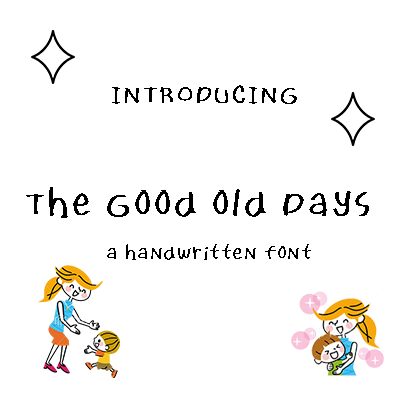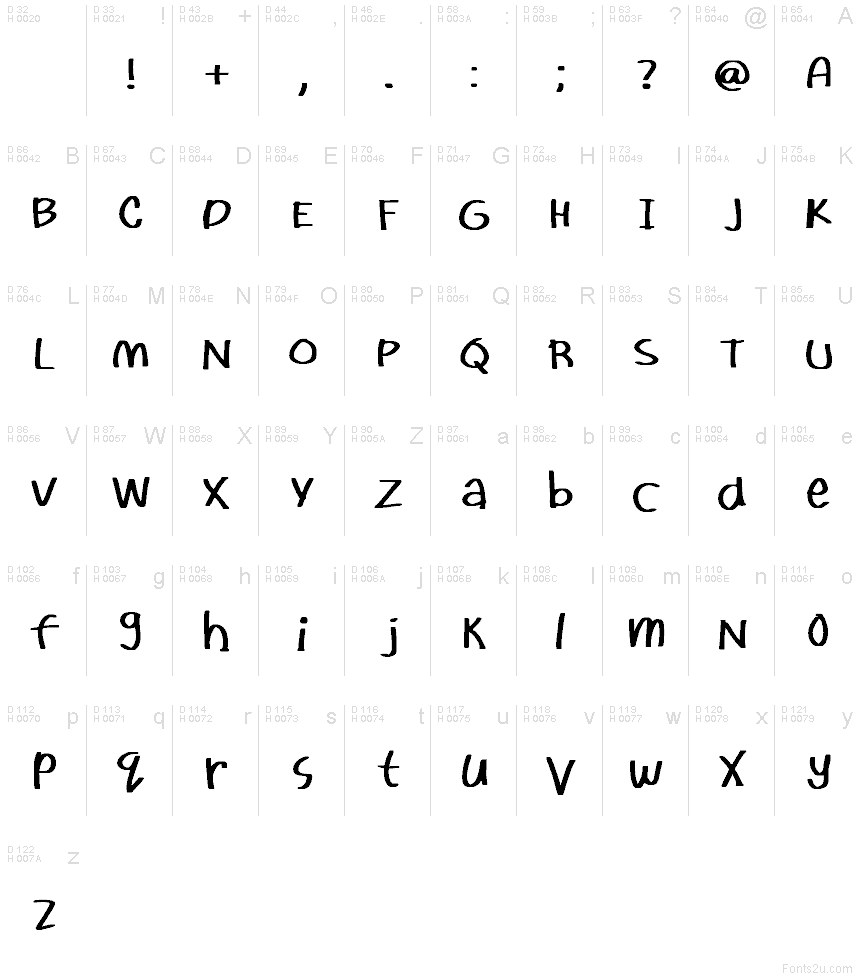
The Good Old Days font by Dum Dom is a free handwritten typeface that captures the cozy wobble of notes in an old scrapbook. Its rounded, slightly uneven strokes feel inked-by-hand—soft edges, roomy counters, and a gentle bounce that reads warm rather than messy. Letters sit with an easy rhythm, giving headlines a friendly, nostalgic lift without turning kitschy.
Using The Good Old Days, you’ll nail retro posters, café chalkboards, greeting cards, vintage merch tags, scrapbook titles, kids’ book headings, and social stickers. This free font shines at medium to large sizes where its texture can breathe. Pair it with a clean, narrow sans for body copy to keep the charm upfront and the message clear.